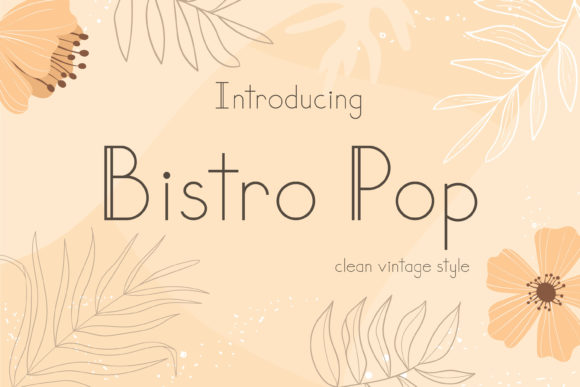
Prepare yourself to stun with Bistro Pop, where classic elegance meets modern simplicity! This captivating sans serif font family adds a dash of sophistication to any project.
Imagine your house numbers standing out with the confidence of a bold declaration. Each digit becomes a statement piece, thanks to Bistro Pop's crystal-clear lines and enchanting curves. Its minimalist design transforms your address into a work of art, sparking admiration among visitors and passersby alike.
Bistro Pop's effortless cool translates perfectly onto logos, websites, and any design craving a touch of understated charm. Its clean lines dance across the page, creating a sleek and unforgettable impression that lingers in the minds of your audience.
Embrace the allure of Bistro Pop today, and let its timeless beauty elevate your designs to extraordinary heights. Let your creativity flourish with a font that whispers elegance and commands attention. Bistro Pop – where understated style and captivating presence collide!